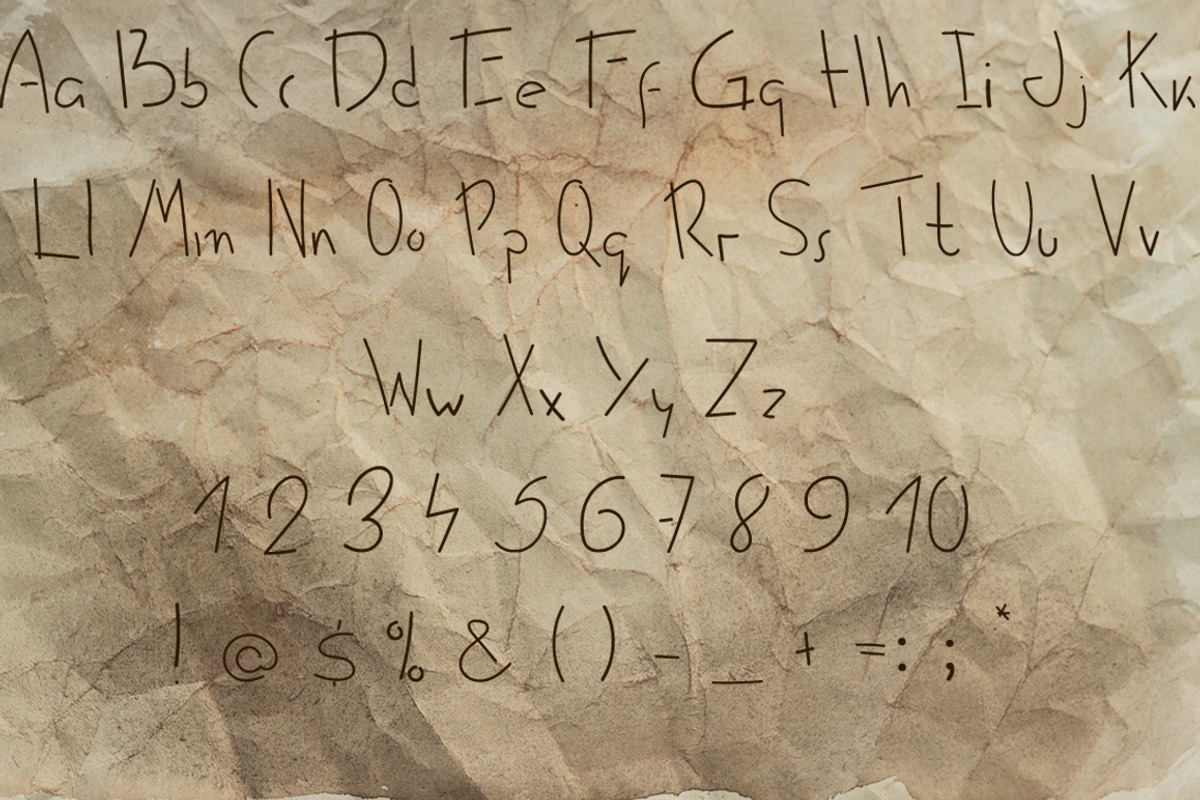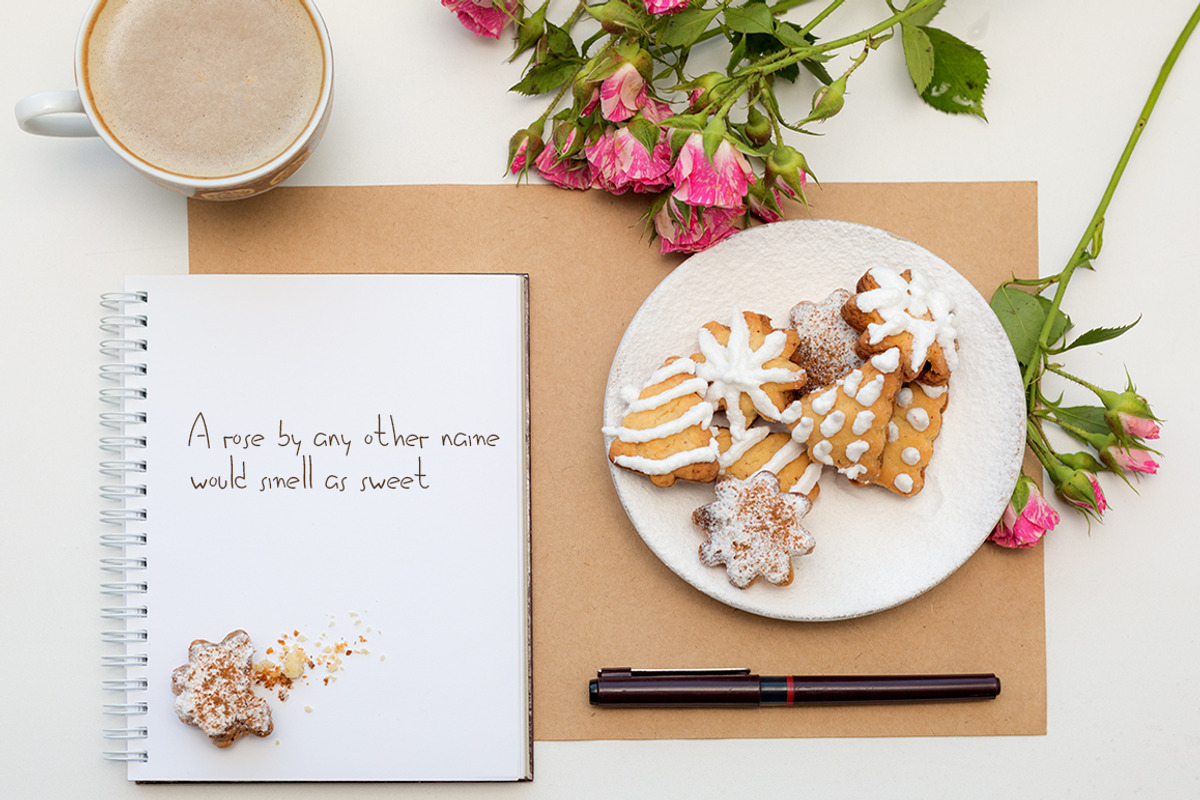
Quick handwritten font
Quick handwritten font by Ana Babii is a font selected for branding, posters, packaging, typography.
Why Quick handwritten font is worth a look
Quick handwritten font by Ana Babii fits naturally into Branding, posters, packaging, typography.